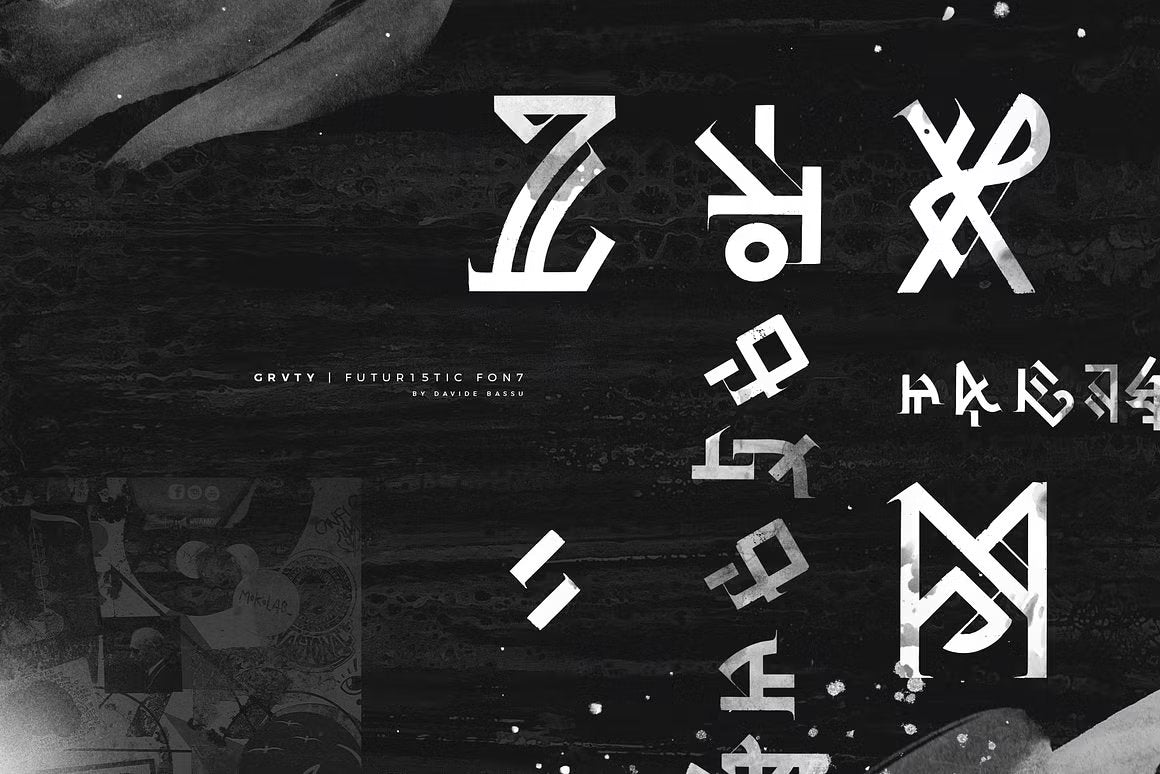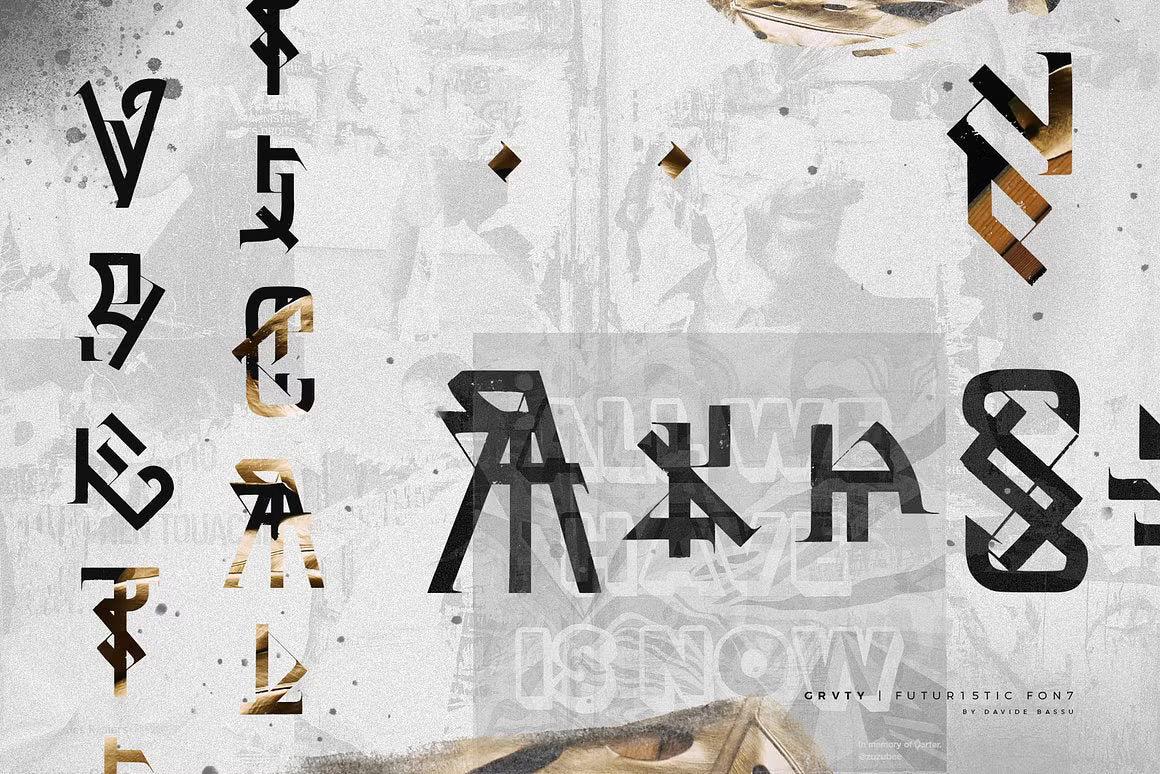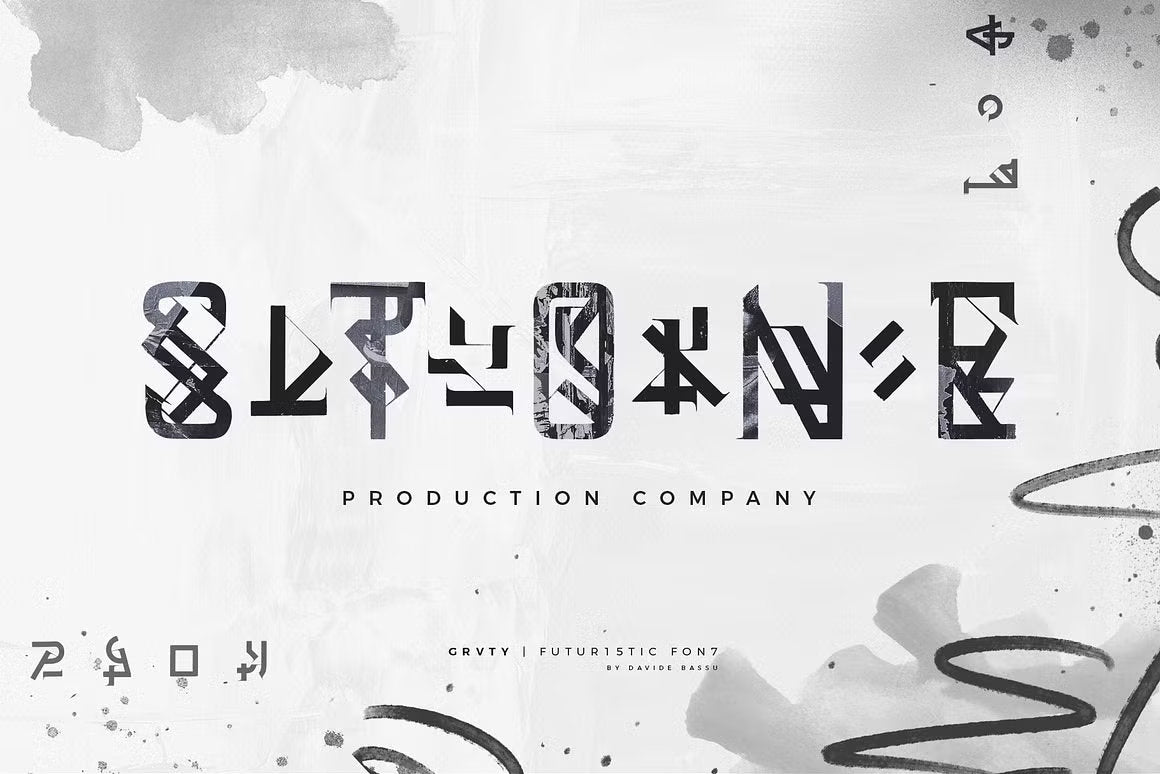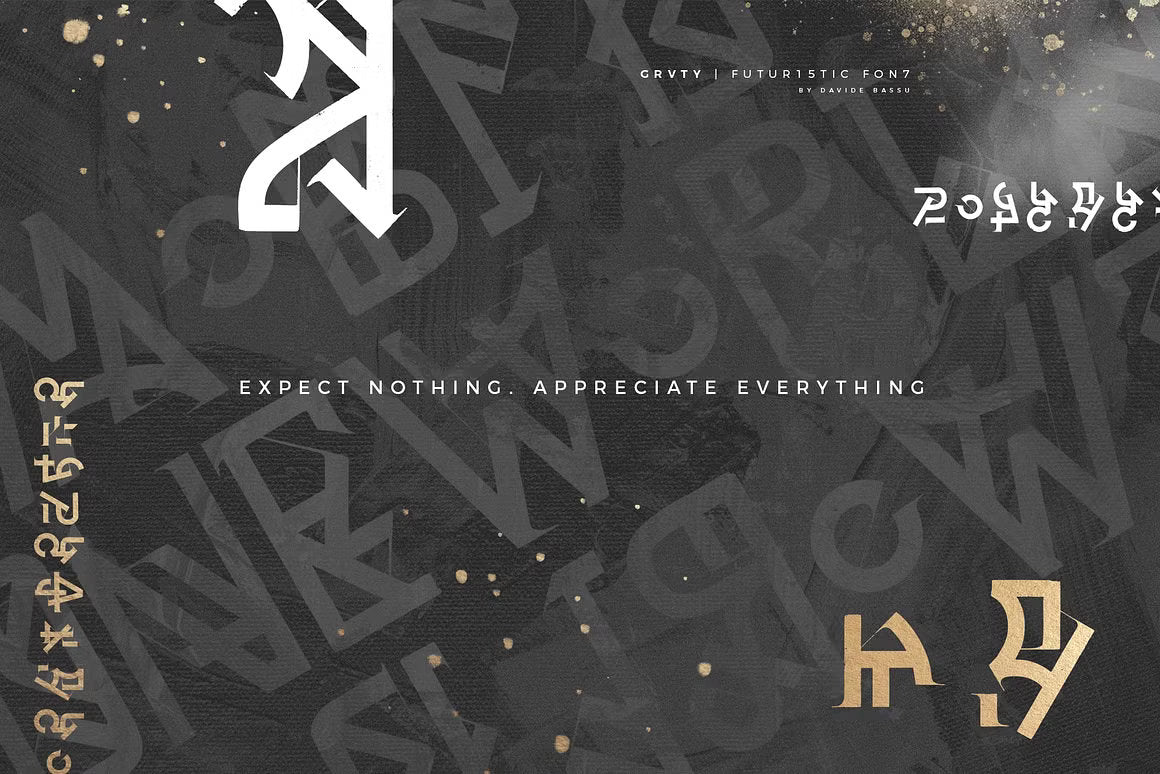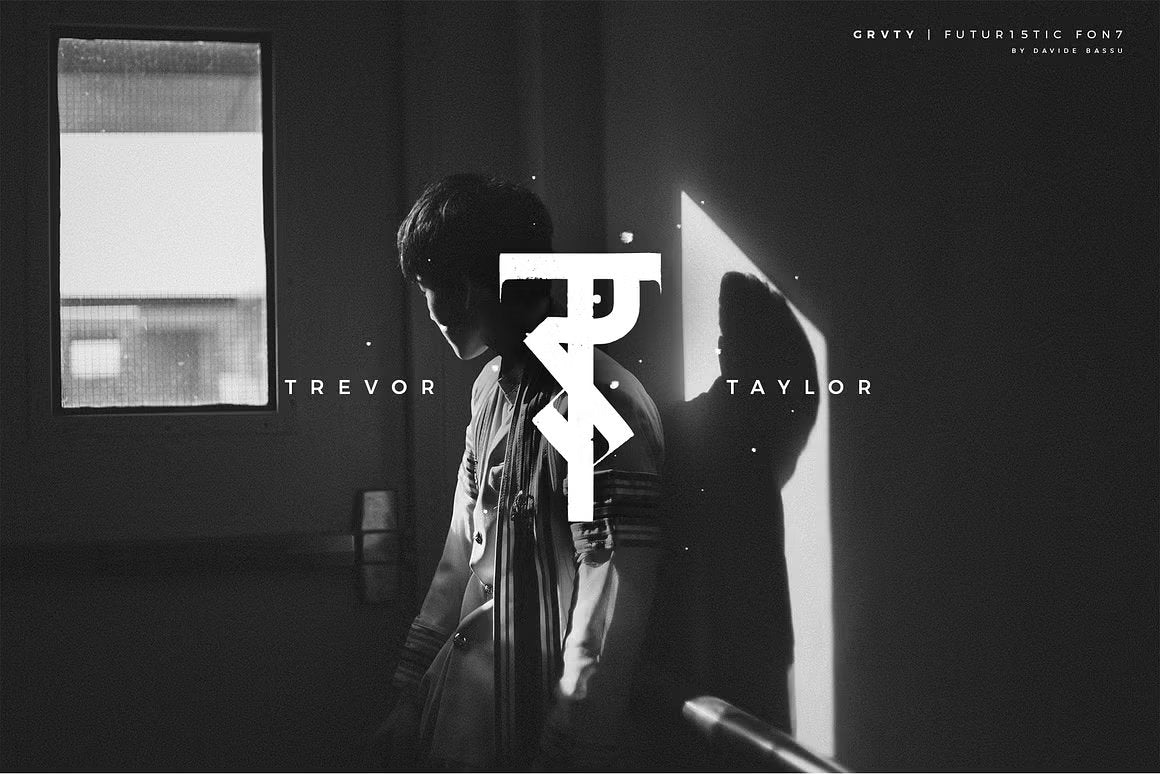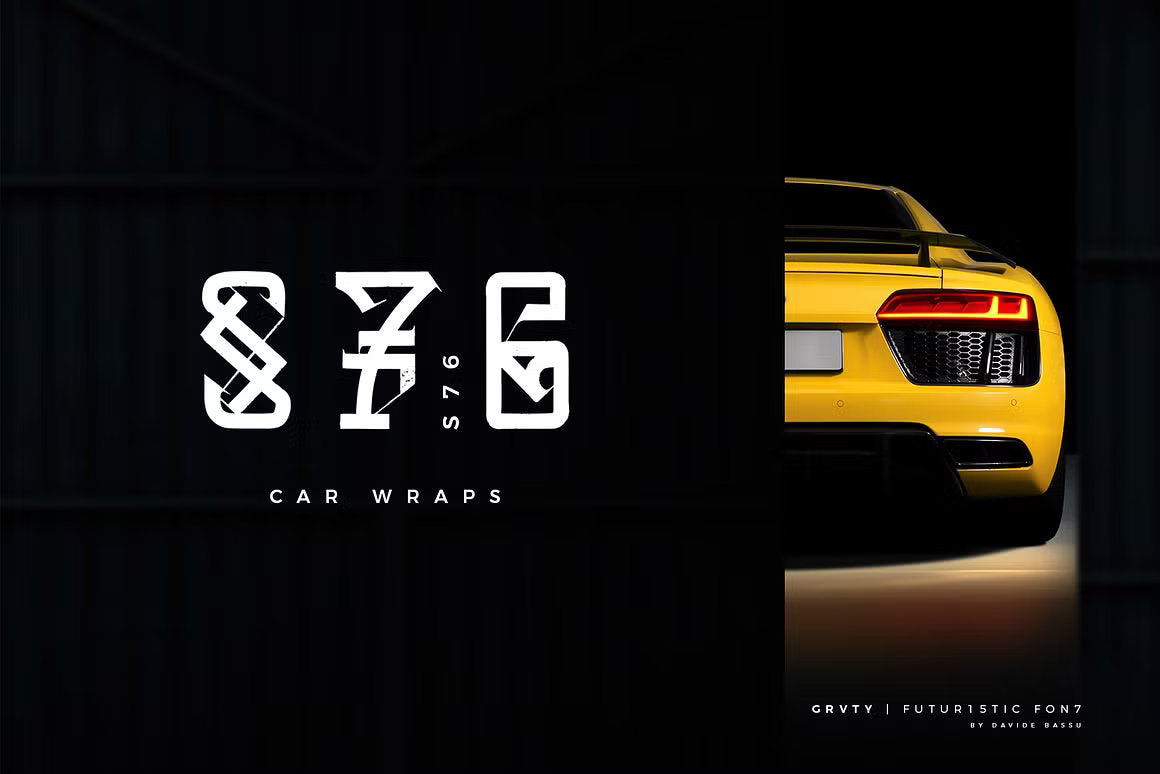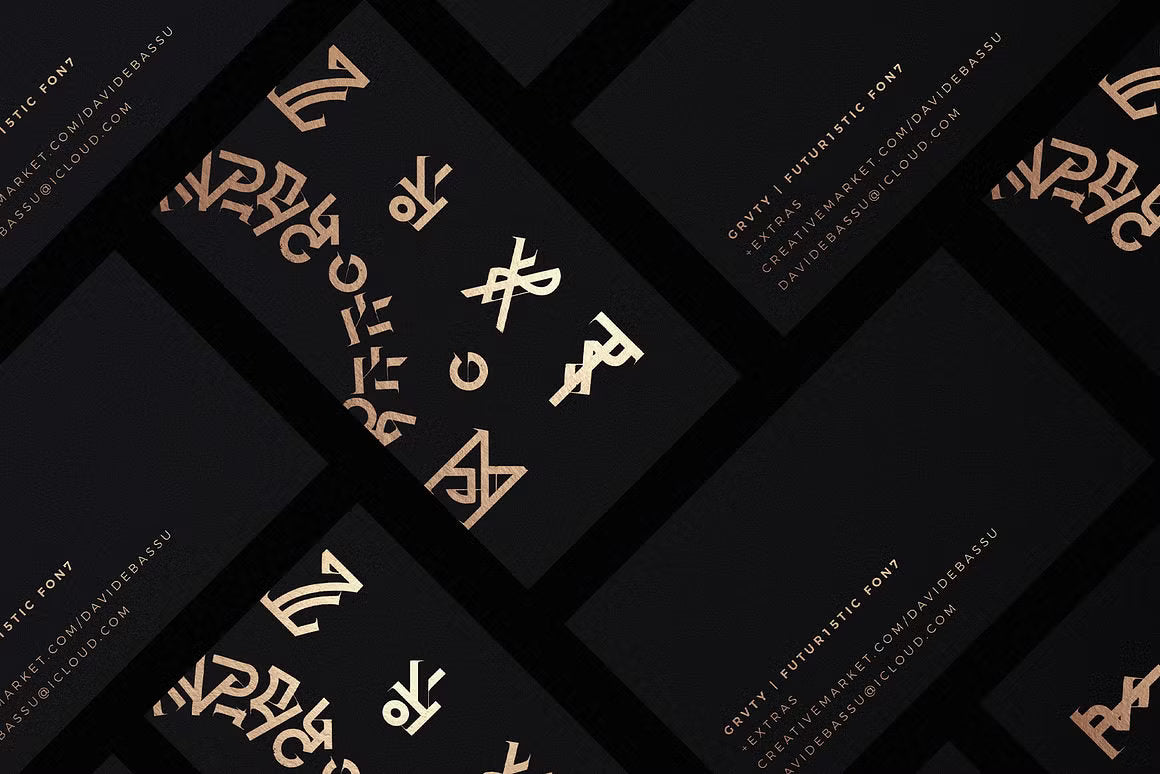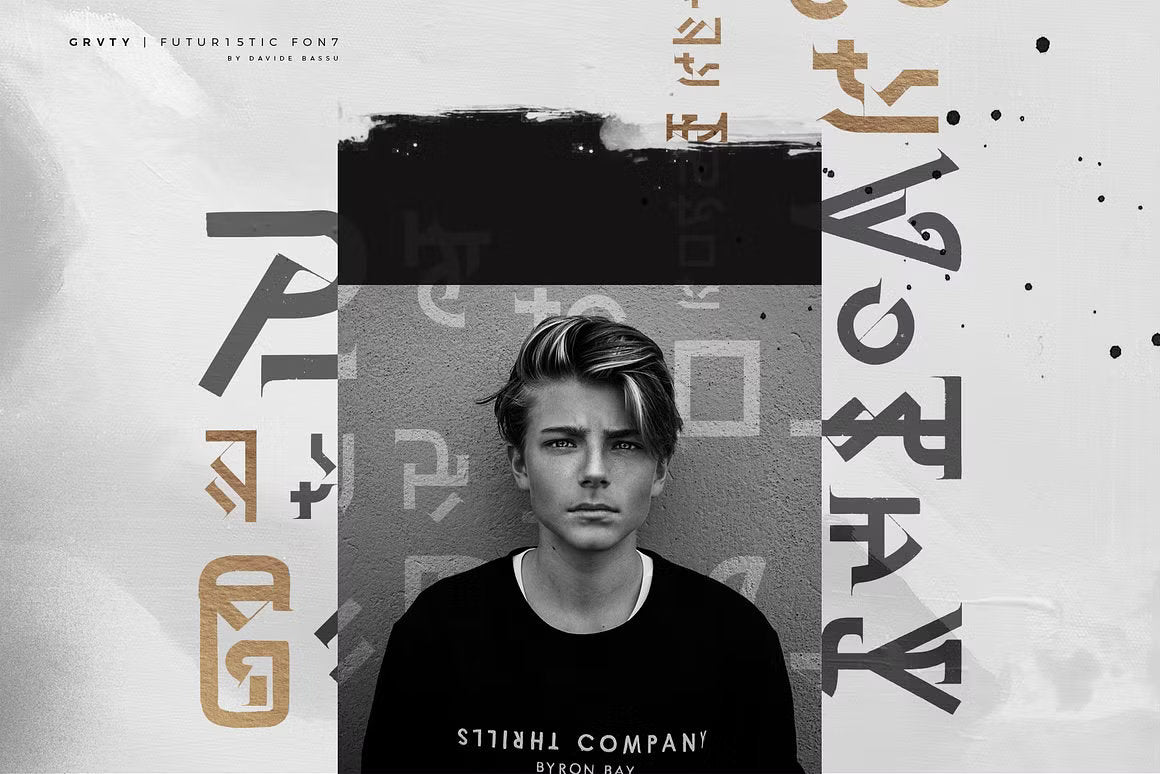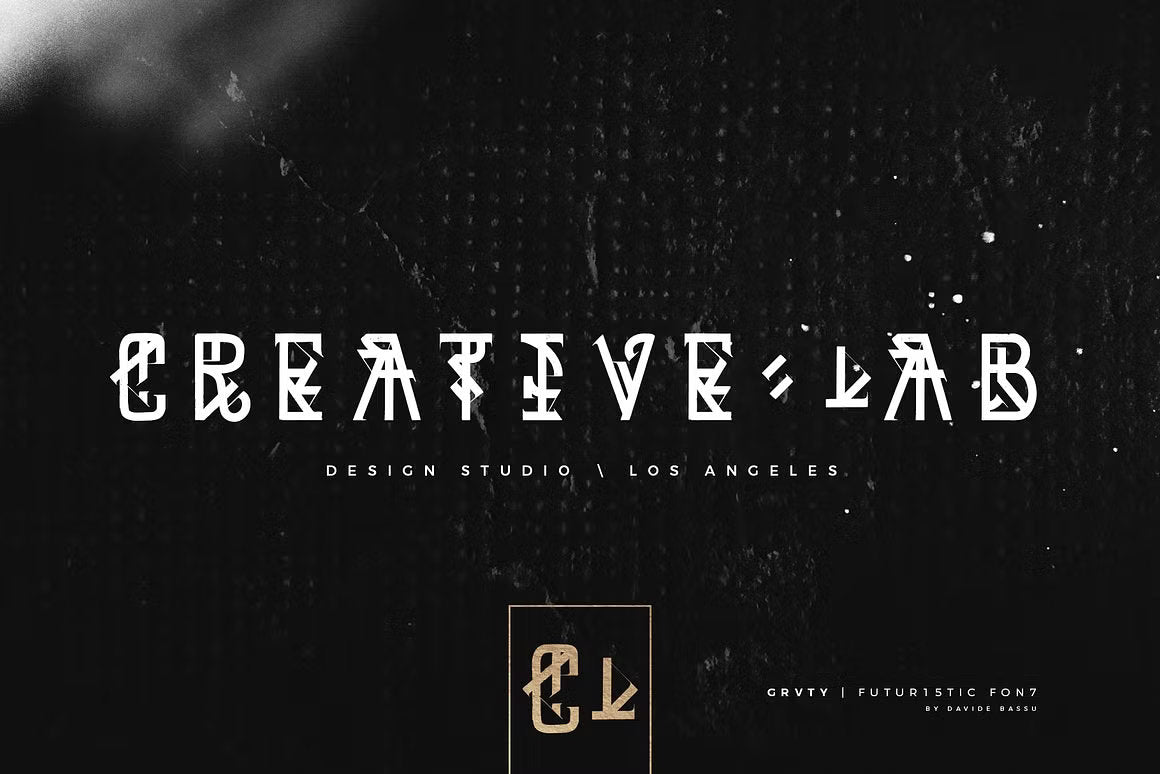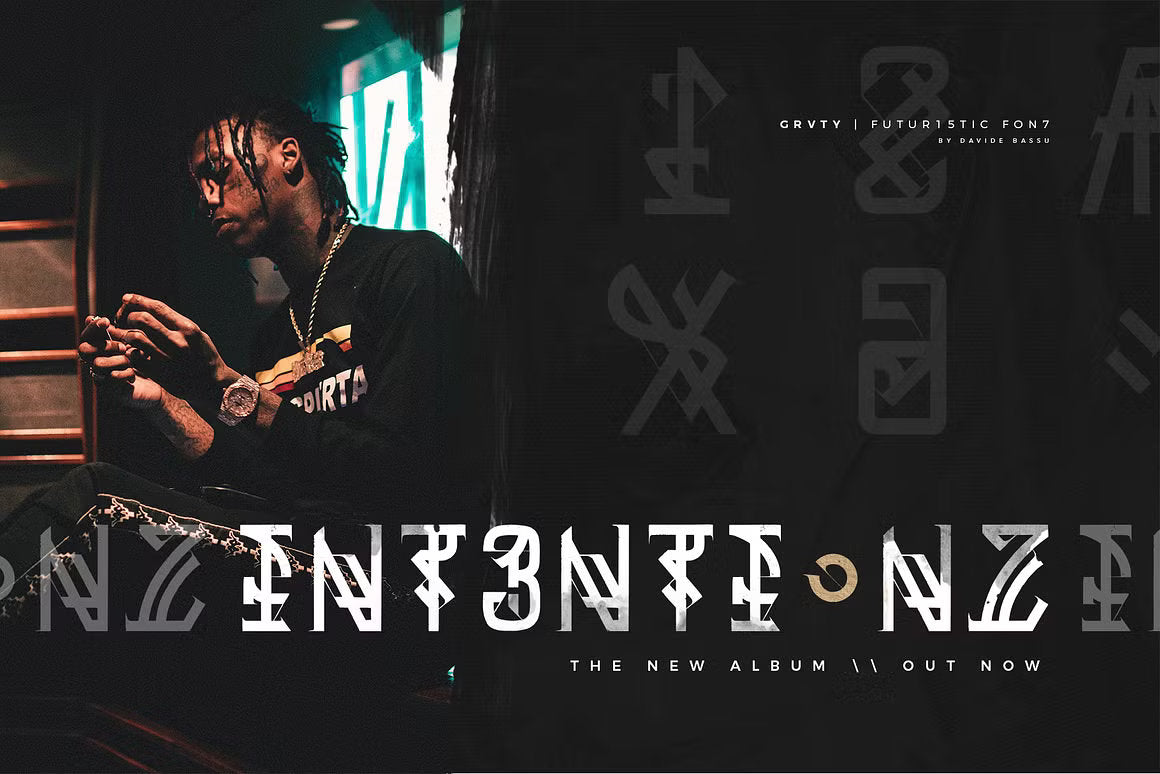
GRVTY | Futuristic font
GRVTY (short for Gravity) is a bold and expressive handmade typeface that fuses calligraphy, typography, and graffiti into a unique visual style. Inspired by the art of Calligraffiti—a movement that merges abstract expressionism with street culture—this font transforms words into powerful visual compositions.
Raw yet intentional, GRVTY was created to make a statement. Each stroke feels like a brush dipped in rebellion, ideal for projects that need edge, energy, and emotion.
Font Features
Uppercase alphabet with stylized construction
Abstract, experimental lowercase set
Numerals and wide range of punctuation marks
All hand-drawn with organic distortion and rhythm
Perfect For
GRVTY is ideal for designers working in the space between art and utility. Use it for:
Bold branding & logo design
Print campaigns & album covers
Fashion & streetwear graphics
Posters, packaging, and creative visuals